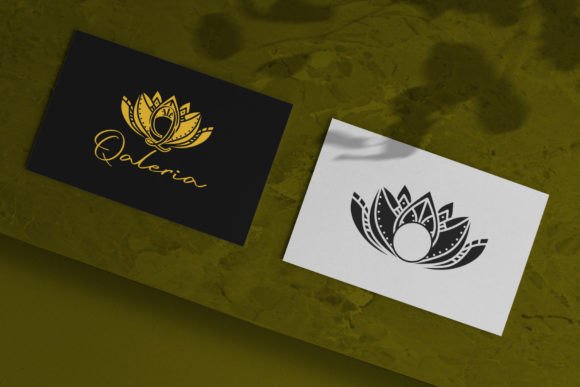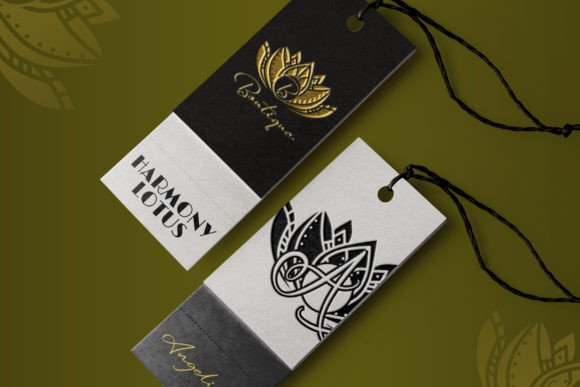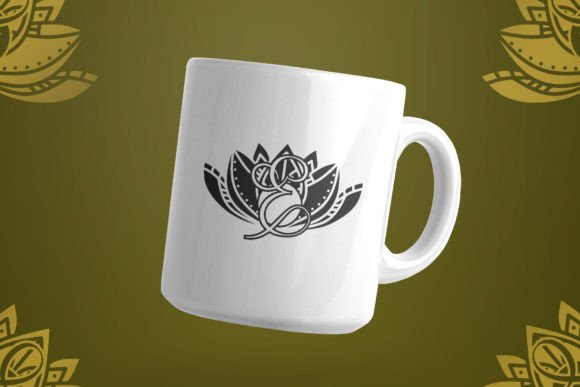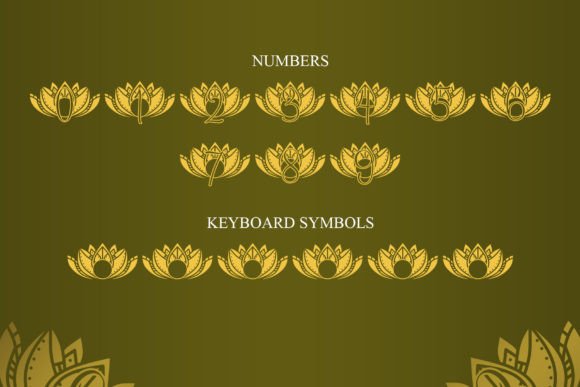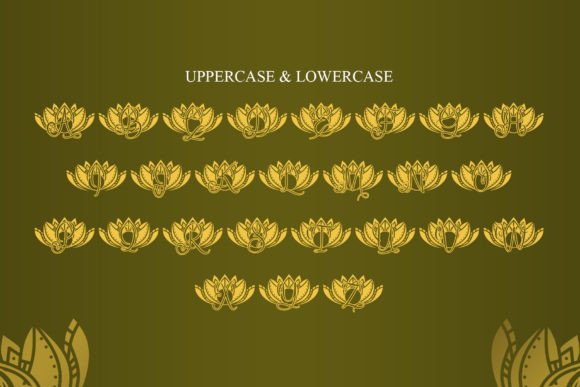
Introducing Harmony Lotus Mandala Monogram Font: Elevate Your Designs with Elegance
Are you a designer, crafter, or DIY enthusiast looking for a unique and stylish font to elevate your projects? Look no further than the Harmony Lotus Mandala Monogram Font. Inspired by the elegance and spiritual significance of the lotus flower, this decorative font is perfect for adding a touch of sophistication and beauty to your craft, logo, or any creative endeavor.
The Inspiration Behind Harmony Lotus Mandala Monogram Font
The lotus flower is a symbol of spiritual growth, renewal, and harmony in many Eastern cultures. Its majestic beauty and intricate details have inspired artists and designers for centuries. The Harmony Lotus Mandala Monogram Font captures the essence of this iconic flower, transforming its delicate curves and patterns into a stunning decorative font.
Key Features of Harmony Lotus Mandala Monogram Font
- Unique and Stylish Design: The Harmony Lotus Mandala Monogram Font boasts an exclusive design that will set your projects apart from the rest.
- Decorative and Elegant: Perfect for adding a touch of sophistication and glamour to your craft, logo, or designs.
- Monogram Style: Ideal for creating personalized and customized monograms, logos, or initials.
- Multipurpose: Use it for a wide range of projects, from crafting and scrapbooking to logo design and branding.
- Easily Customizable: Experiment with different colors, sizes, and styles to match your unique vision.
Use Cases for Harmony Lotus Mandala Monogram Font
The Harmony Lotus Mandala Monogram Font is an incredibly versatile font that can be used in various design projects, including:
- Logo Design: Create stunning logos, watermarks, or signatures that showcase your brand’s personality.
- Crafting and Scrapbooking: Add a touch of elegance to your craft projects, such as handmade cards, gift tags, or journal pages.
- Branding and Packaging: Elevate your brand’s visual identity with custom labels, packaging, or stationery.
- Digital Art and Illustration: Use the font to create beautiful digital art, illustrations, or mixed media compositions.
Tips for Getting the Most Out of Harmony Lotus Mandala Monogram Font
To make the most of this stunning font, consider the following tips:
- Experiment with Colors: Try pairing the font with different colors, gradients, or textures to create unique visual effects.
- Play with Sizes: Use the font in various sizes to create visual hierarchy and add emphasis to your designs.
- Combine with Other Fonts: Mix and match the Harmony Lotus Mandala Monogram Font with other fonts to create interesting typography combinations.
- Add Patterns and Textures: Incorporate patterns, textures, or illustrations to enhance the font’s visual appeal.
The Harmony Lotus Mandala Monogram Font is a beautiful and versatile decorative font that can elevate your designs, craft projects, or logos with its elegant and sophisticated style. With its unique design, monogram style, and multipurpose use cases, this font is perfect for designers, crafters, and DIY enthusiasts looking to add a touch of luxury and beauty to their creations. So why wait? Download the Harmony Lotus Mandala Monogram Font today and unlock a world of creative possibilities!